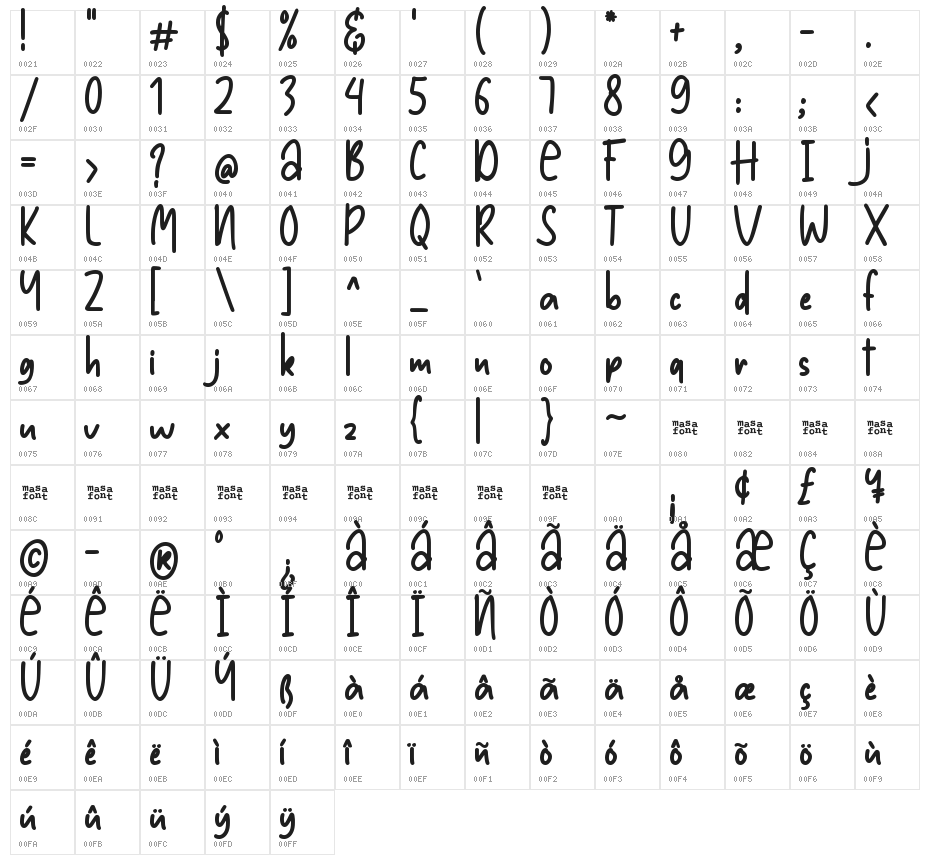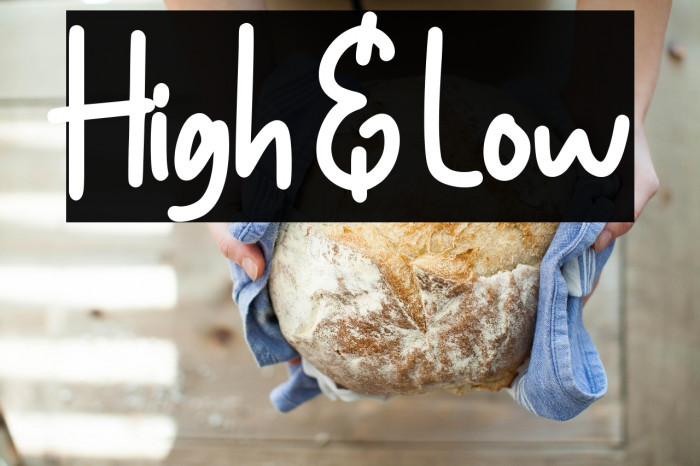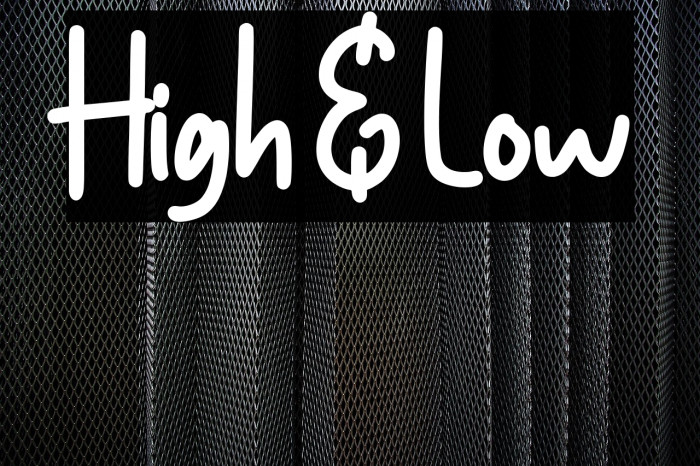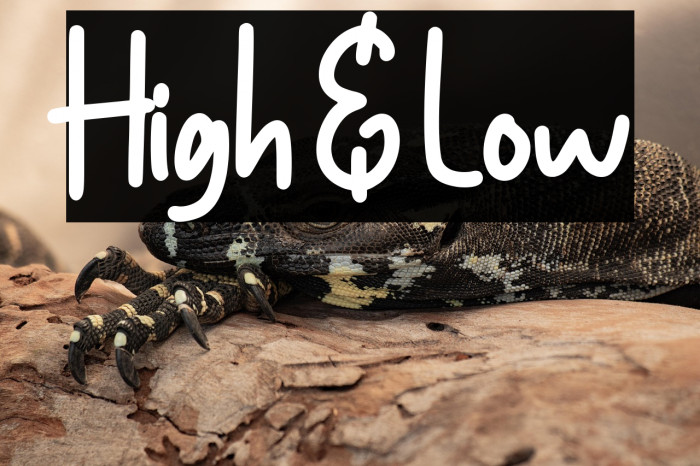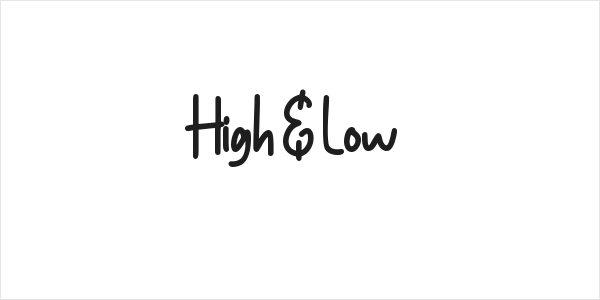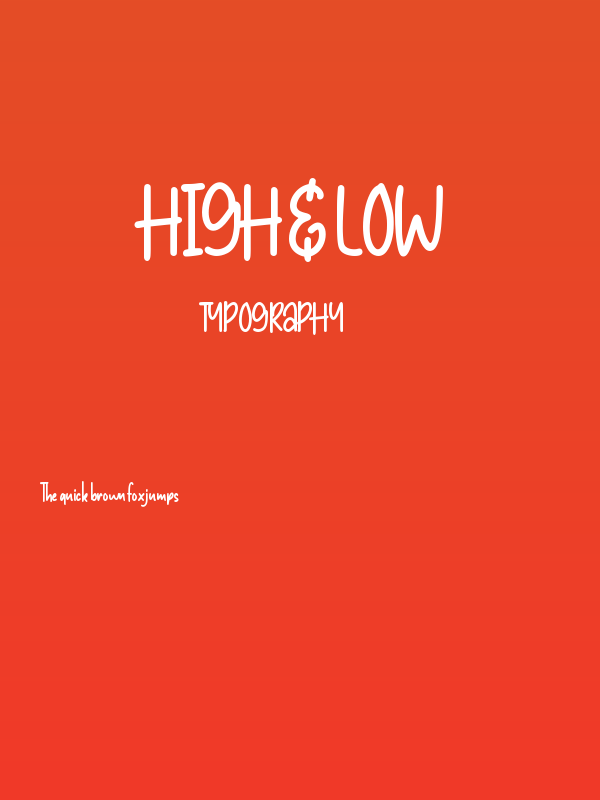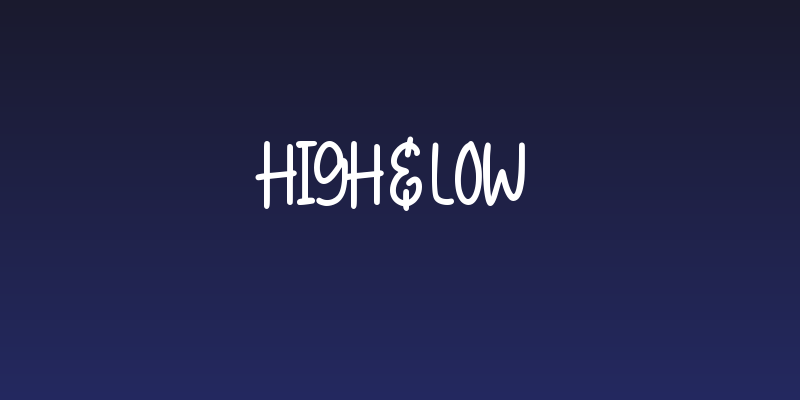
High & Low Font
High & Low Description
A playful, handwritten font with a casual and informal style, featuring rounded edges and a slightly uneven baseline.
| Proposed Projects | Greeting cards, casual invitations, children's books. |